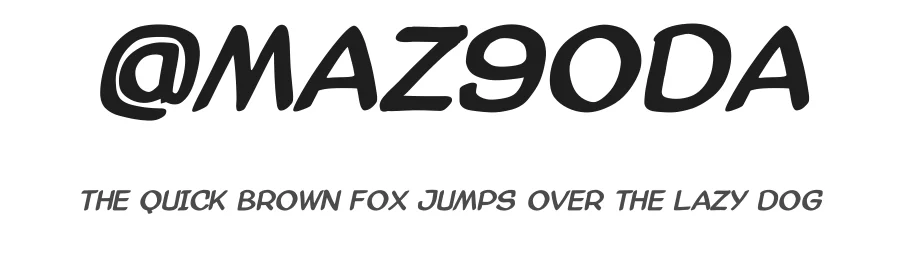
About Bombora Font
BOMBORA evolved from work with surf designs and was expertly digitized by Brian Kent in New York. The native name is given to massive surf building up over a reef. Listen to the great live track BOMBORA by the "Atlantics"
| Designer | Jan Paul |
Bombora Font is a decorative font that shines as a display or heading face. Pair it with a clean sans-serif or serif font for body text β the contrast creates a clear hierarchy while the two styles stay balanced and easy to read.